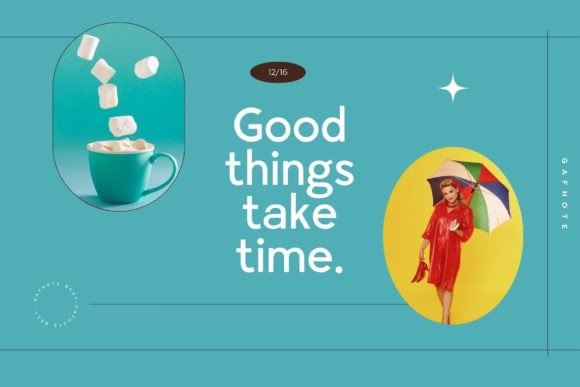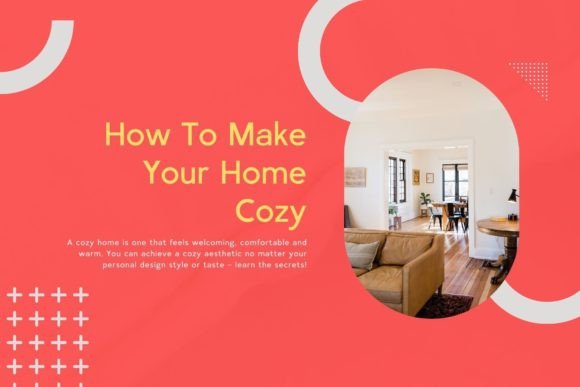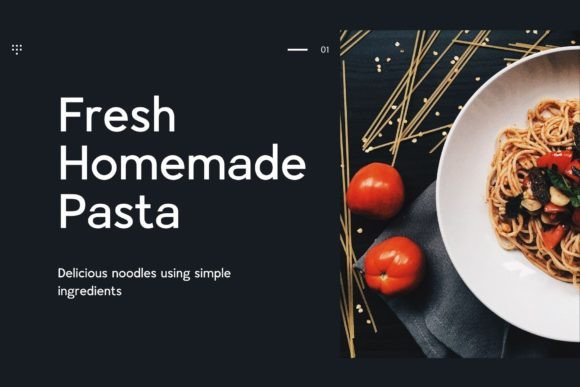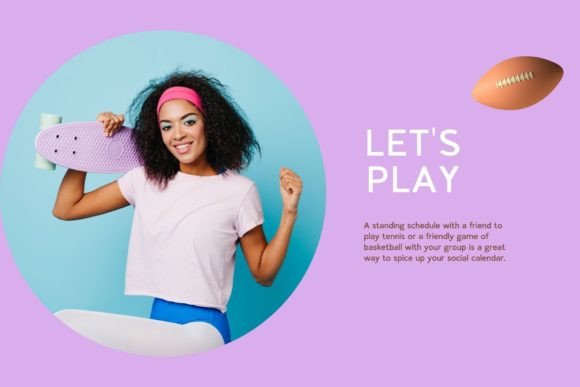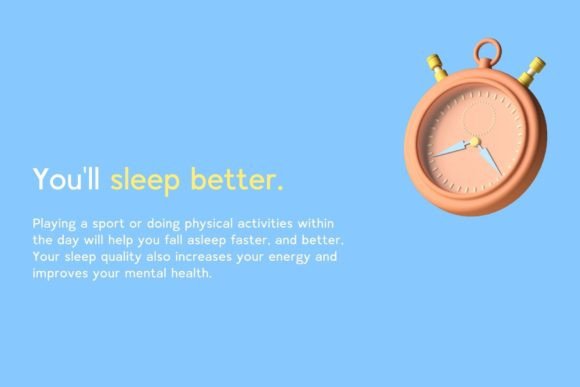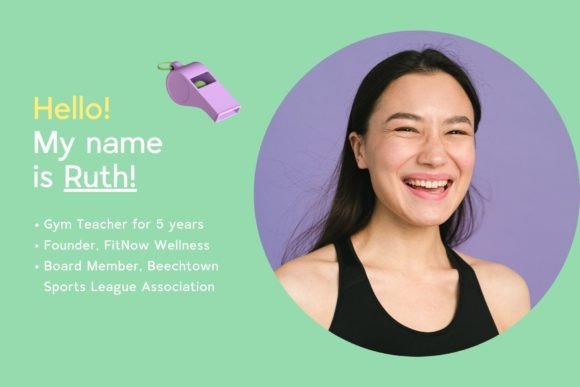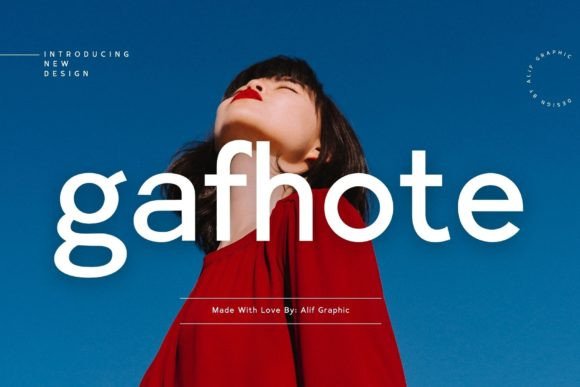
Gafhote Font: Elevate Your Design with Elegance and Modernity
In the realm of typography, a beautiful series of letters can make all the difference in capturing the essence of a message. The Gafhote Font embodies this philosophy, offering a neat and modern lettering style that is both pleasing to the eye and versatile for various writing needs. With its modern impression and elegant aesthetic, this font is perfect for designers and crafters looking to add a touch of sophistication to their projects.
The Essence of Gafhote Font
The Gafhote Font is meticulously crafted with tidiness as its top priority. Each letter is designed to stand out on its own while contributing to a cohesive and harmonious text flow. This attention to detail ensures that the font exudes a sense of professionalism and refinement, making it suitable for a wide range of applications, from digital media to print materials.
Modern yet Elegant
What sets the Gafhote Font apart is its unique blend of modernity and elegance. In today’s fast-paced digital landscape, fonts that are too ornate or traditional can sometimes feel out of place. The Gafhote Font strikes the perfect balance, offering a clean and contemporary look that is instantly recognizable. Whether you’re working on a branding project, a website, or a crafting endeavor, this font will undoubtedly elevate your design.
Unleash Your Creativity
One of the most exciting aspects of the Gafhote Font is its potential to unlock creativity. With its versatile design, you can experiment with various styles, from minimalist to more elaborate compositions. The font’s adaptability makes it an excellent choice for designers and crafters who enjoy pushing the boundaries of what’s possible. Whether you’re creating stationery, posters, or digital content, the Gafhote Font invites you to explore new creative horizons.
For designers, the Gafhote Font offers a reliable and stylish solution for client projects. Its modern and elegant appearance ensures that your work will stand out, making it an excellent addition to your typographic toolkit. Crafters, on the other hand, will appreciate the font’s aesthetic appeal and the professional touch it brings to handmade projects. Whether you’re creating custom invitations, DIY crafts, or personal branding materials, the Gafhote Font is sure to impress.
Key Features of Gafhote Font
• Modern Impression: The Gafhote Font boasts a contemporary design that is perfect for modern writing needs.
• Elegant Aesthetic: With its neat and tidy lettering, this font exudes elegance and sophistication.
• Versatility: Suitable for a wide range of applications, from digital media to print materials.
• Creative Freedom: Encourages experimentation and creativity in design.
The Gafhote Font represents a beautiful marriage of modernity and elegance, offering designers and crafters a versatile and stylish typographic solution. Its meticulous design and attention to detail make it an excellent choice for those seeking to elevate their projects with a professional and refined aesthetic. Whether you’re looking to create something modern, elegant, or simply visually appealing, the Gafhote Font is sure to deliver satisfying results. Embrace the creative possibilities with the Gafhote Font and discover a new world of typographic excellence.